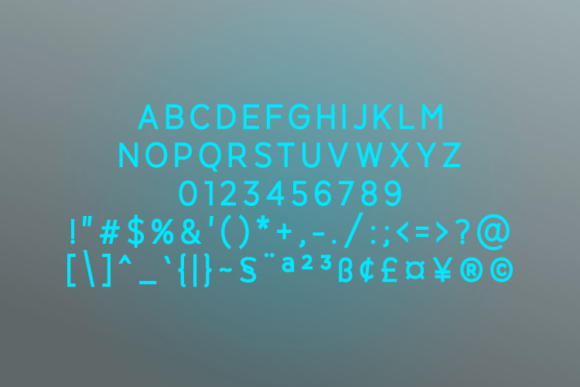
The Designer’s Delight: Uncovering the Beauty of Agnella Extra Bold Font
I’ll never forget the time I was working on a branding project for a new coffee shop. My client wanted a bold, yet elegant font to represent their business. I scoured the internet, trying out font after font, but nothing seemed quite right. That was until I stumbled upon Agnella Extra Bold Font. Its subtle elegance and strong, steady appearance won me over, and it became the perfect fit for the project. In this article, I’ll share my love for Agnella, its features, and how to make the most of it in your designs.
An Honest Review of Agnella Extra Bold Font
- ✨ Strong and steady appearance: Agnella’s vertically and horizontally cut stems make it appear robust and confident.
- ✅ Subtle elegance: The font’s sans serif design with a touch of sophistication makes it perfect for a wide range of design projects.
- 🌈 Versatility: Agnella Extra Bold Font works well in both digital and print designs, from logos and headings to body text.
While Agnella is an excellent font, there are a few things to keep in mind:
- ⚠️ Not ideal for body text: While Agnella can be used for body text, it’s primarily designed for headings and titles. For longer text, consider pairing it with a more readable font.
- Experiment with OpenType features like ligatures and stylistic alternates to add visual interest.
The Backstory of Agnella Extra Bold Font
Agnella was designed with the intention of creating a font that embodies both strength and elegance. The designer aimed to craft a typeface that could serve as a solid foundation for various design projects, from branding to advertising. The result is a versatile font that can adapt to different contexts while maintaining its unique character.
| Font Name | Agnella Extra Bold Font |
| Author | Huntype |
Q: What makes Agnella Extra Bold Font unique?
A: Agnella’s unique feature lies in its combination of strength and elegance, thanks to its vertically and horizontally cut stems.
Q: Is Agnella suitable for body text?
A: While Agnella can be used for body text, it’s primarily designed for headings and titles. For longer text, consider pairing it with a more readable font.